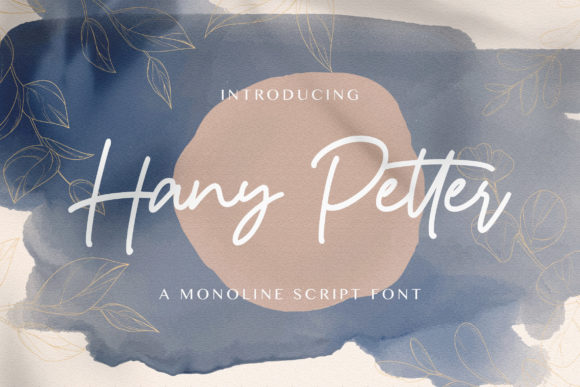
Introducing Hany Petter, the modern and enchanting script font that will transform your designs into masterpieces. Its delicate strokes and graceful curves exude an air of sophistication, evoking a sense of timeless elegance.
Immerse yourself in the world of Hany Petter, where your words come alive with a touch of whimsy and charm. Perfect for crafting personal branding, logos, and wedding invitations, this font is a versatile tool for creating stunning visuals that connect with your audience on an emotional level.
With Hany Petter, your designs will radiate warmth and sophistication, leaving a lasting impression on every viewer. Its carefully crafted characters dance across the page, captivating your audience and capturing their hearts. Whether you're a creative professional seeking to elevate your portfolio or a personal style enthusiast desiring a touch of elegance, Hany Petter is the perfect font to fulfill your design dreams.